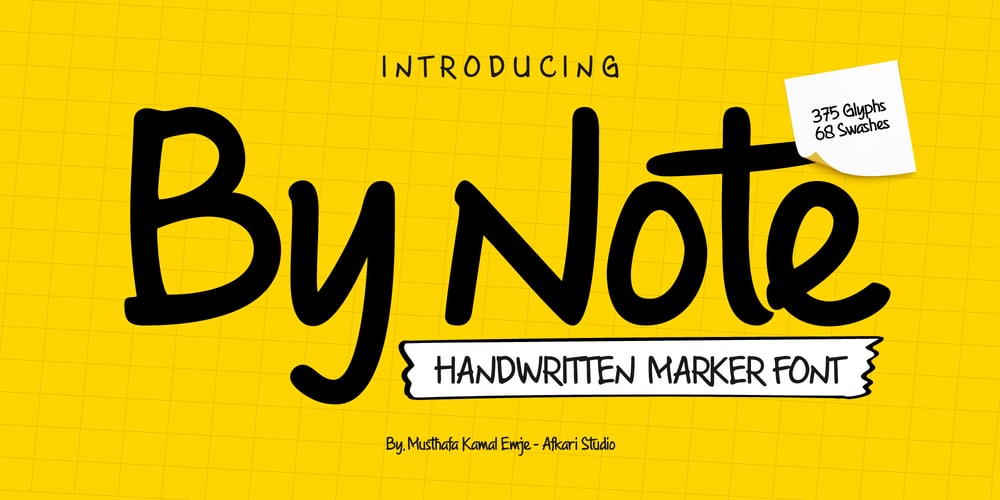
By Note Font Family was designed by Musthafa Kamal Emje and published by Afkari Studio. By Note contains 2 styles and family package options. By Note – Handwritten Marker Note FontBy Note is a handwritten marker note font that’s created with a natural and unique style. A Note Handwritten note font is suitable for various design graphics projects and can be used in any size. This Note font is also great for digital notes, quotes design, book cover, logotype, poster, food menu, t-shirt, scrapbooking, comic illustration, magazine titles, kids project and much more!Features;- Uppercase, Lowercase, Number, and Punctuation- Special alternates and ligatures- Works on PC & Mac- Simple installations- Accessible in Adobe Illustrator, Adobe Photoshop, Adobe InDesign, even work on Microsoft Word- Fully accessible without additional design software.- Mültîlíñgúãl Sùppört for; ä ö ü Ä Ö Ü ß ¿ ¡Hope you enjoy our font and this font is the useful font for your projects!